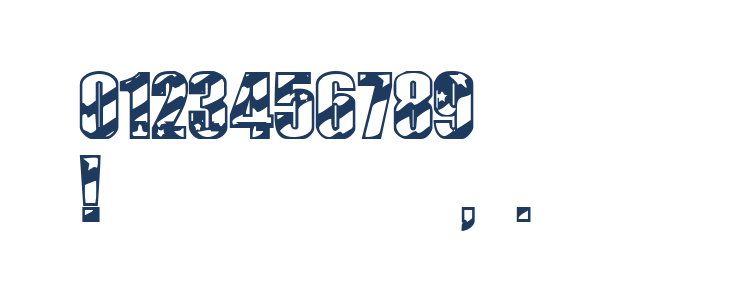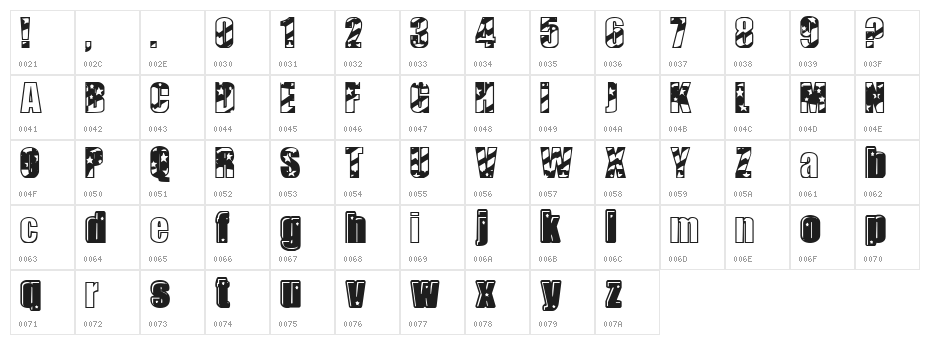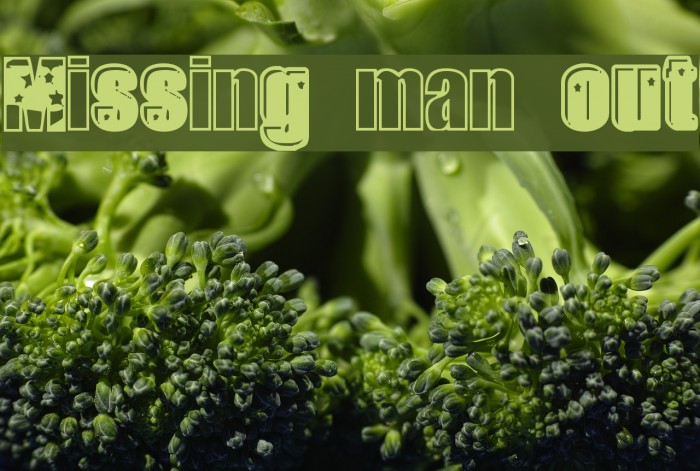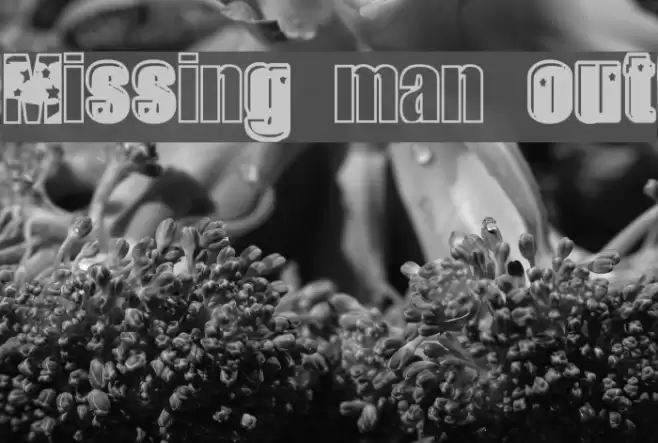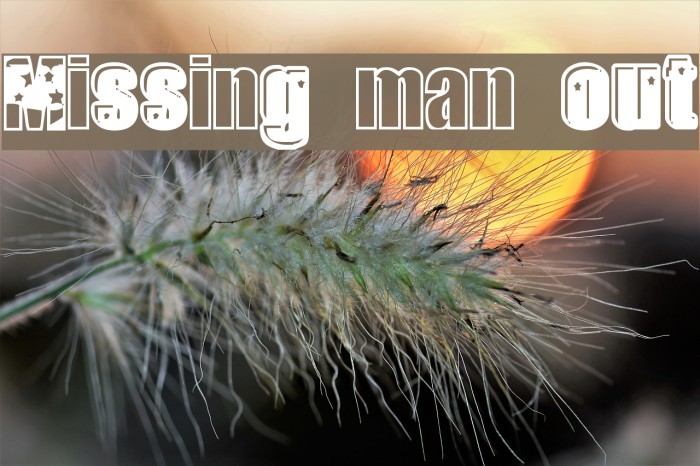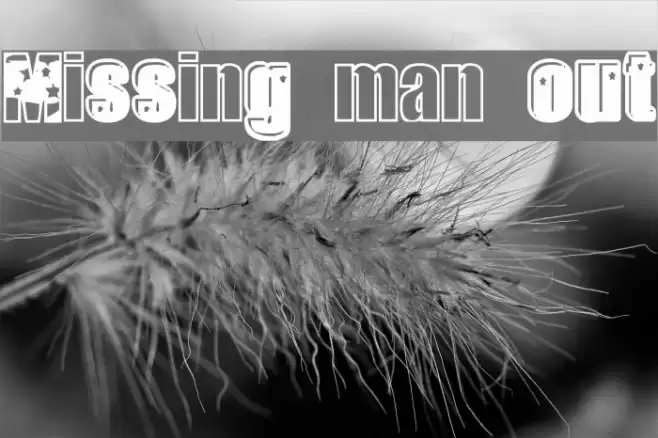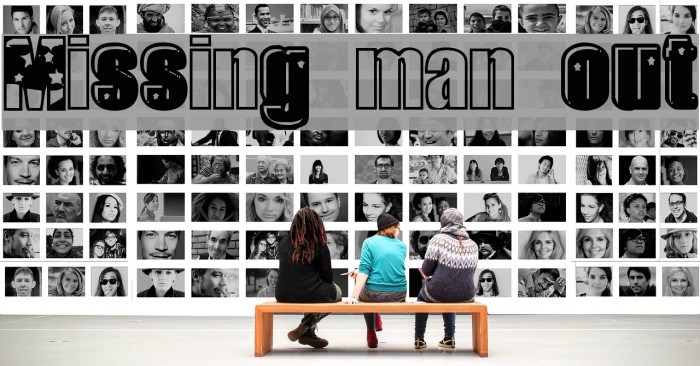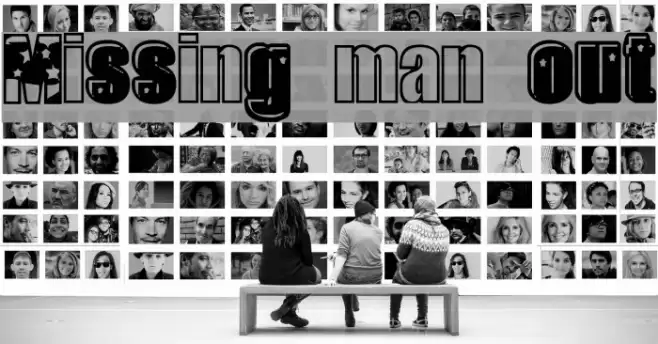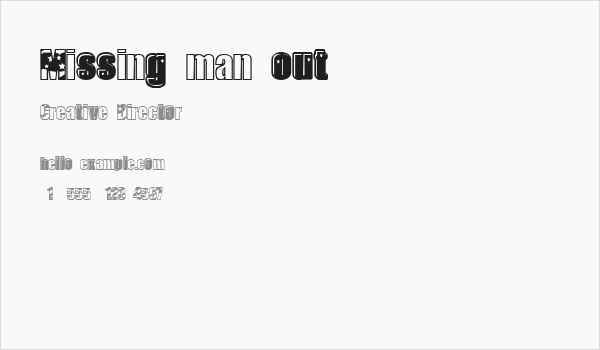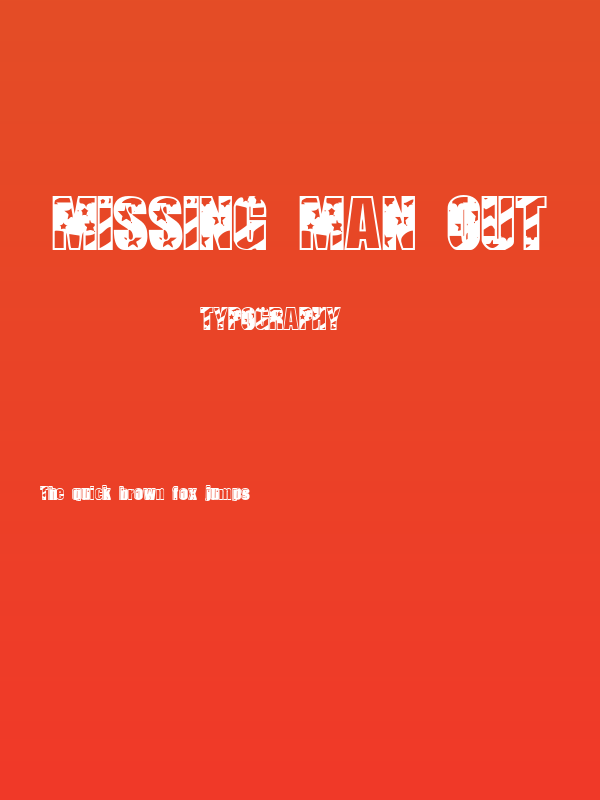
Missing man out Font
Missing man out Description
This font features a bold and decorative style with a unique pattern of stars and stripes within each character, reminiscent of an American flag motif. The uppercase letters are filled with a solid black outline, while the interior showcases a playful pattern of stars and stripes, creating a striking contrast. The lowercase letters maintain a similar style but with a slightly lighter outline, allowing the pattern to stand out more prominently. The numerals and special characters follow the same design, ensuring consistency throughout the font. This font is perfect for projects that require a patriotic or celebratory theme, offering a visually engaging and thematic appearance.
| Proposed Projects | Ideal for patriotic event posters, themed merchandise, or celebratory banners. |